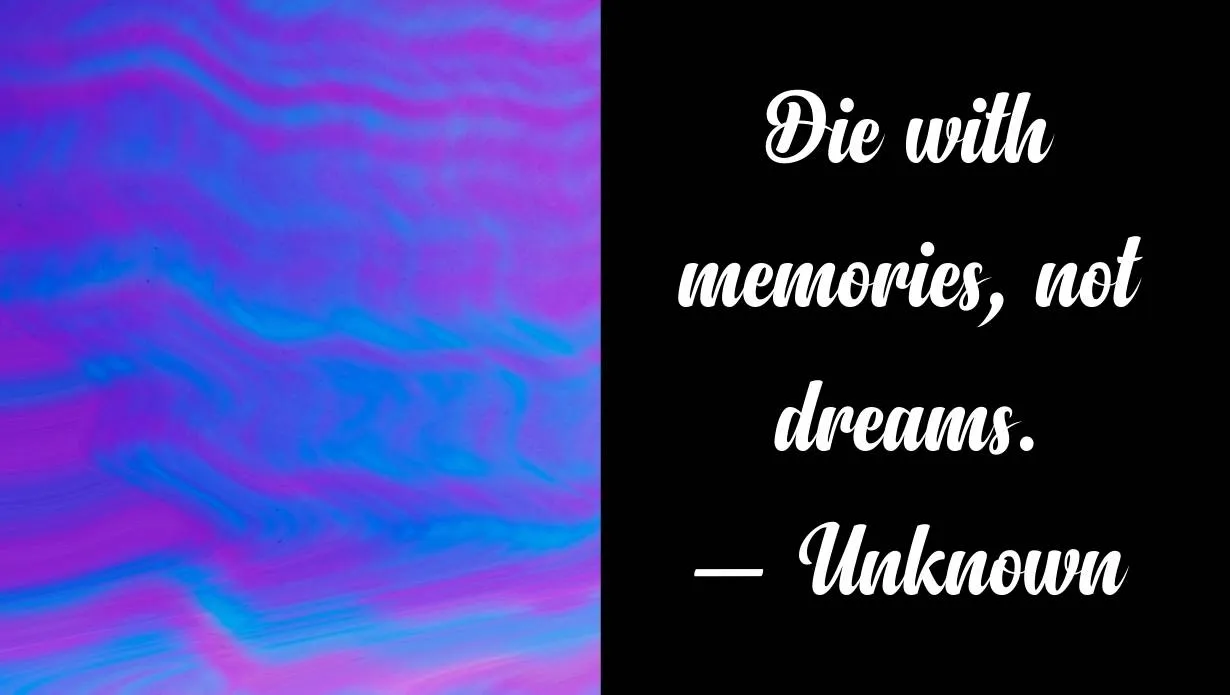
Here we present the most stunning typeface that was known by the name Anydore Font. It was designed by Situjuh Nazara. This tremendous typeface belongs to this Calligraphy typeface.
It has a very unique style that is perfect for title and headline. This typeface is best for Various software like Adobe Photoshop, Canva, and CorelDRAW. If it is your desire that you can get progress and good responses from your clients you need to use this typeface by making pairing with its similar Pristina Font.
Anydore Font Family